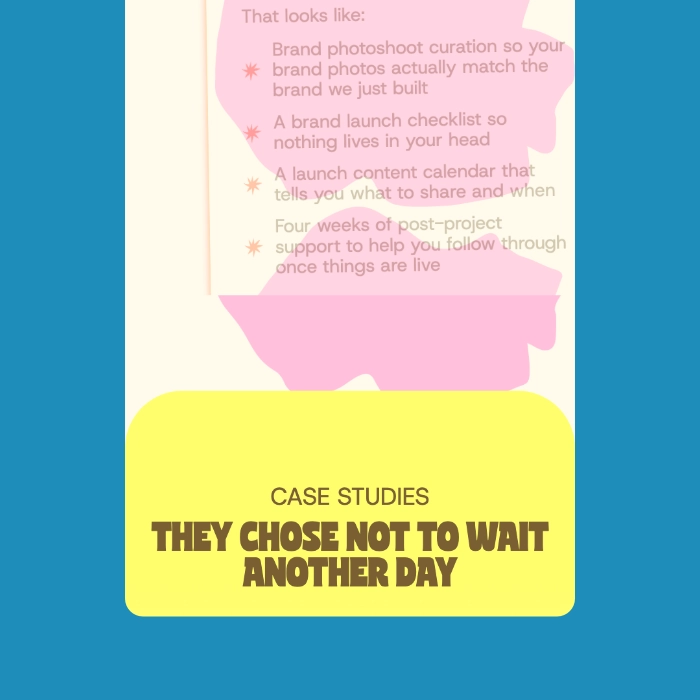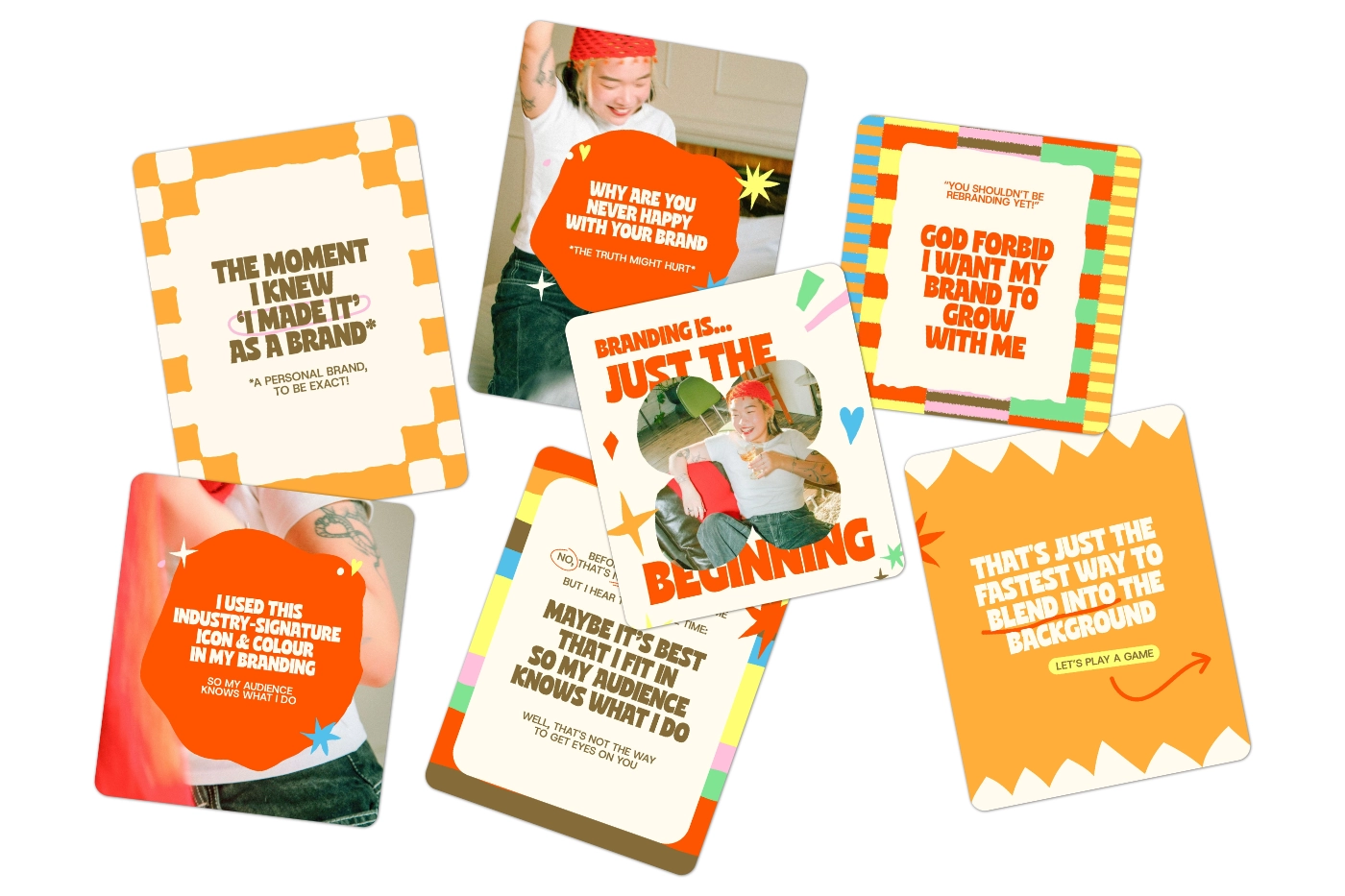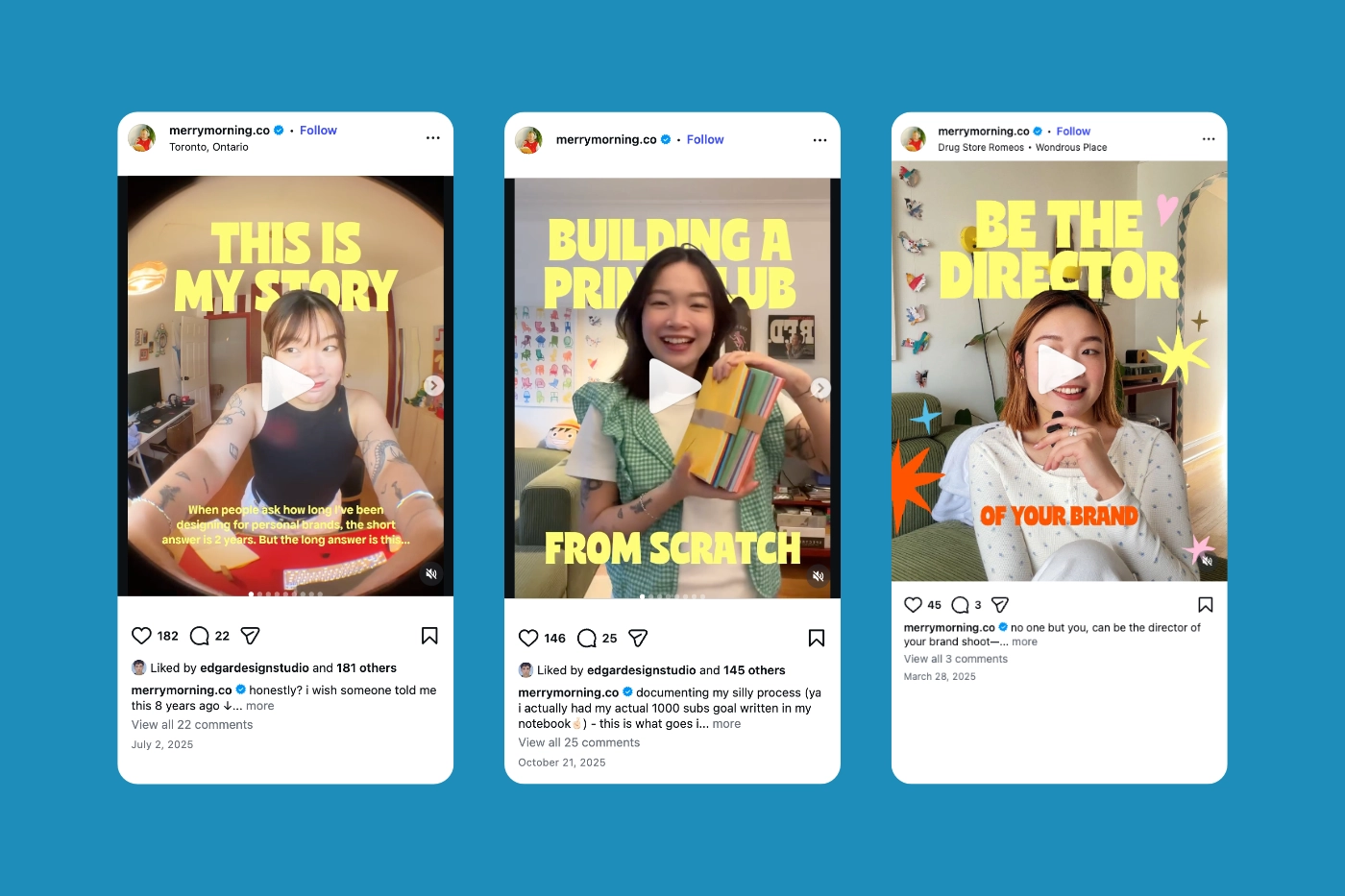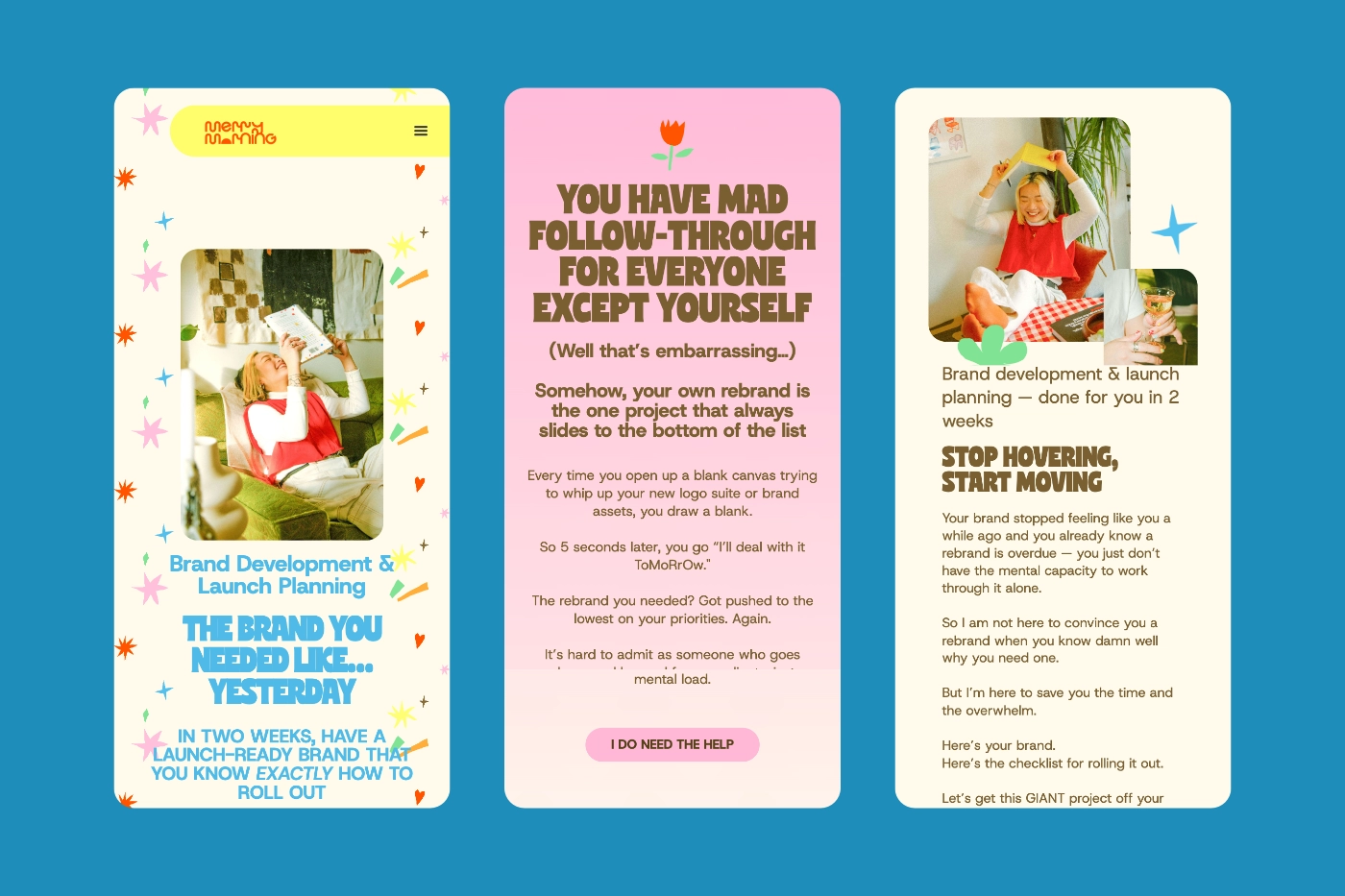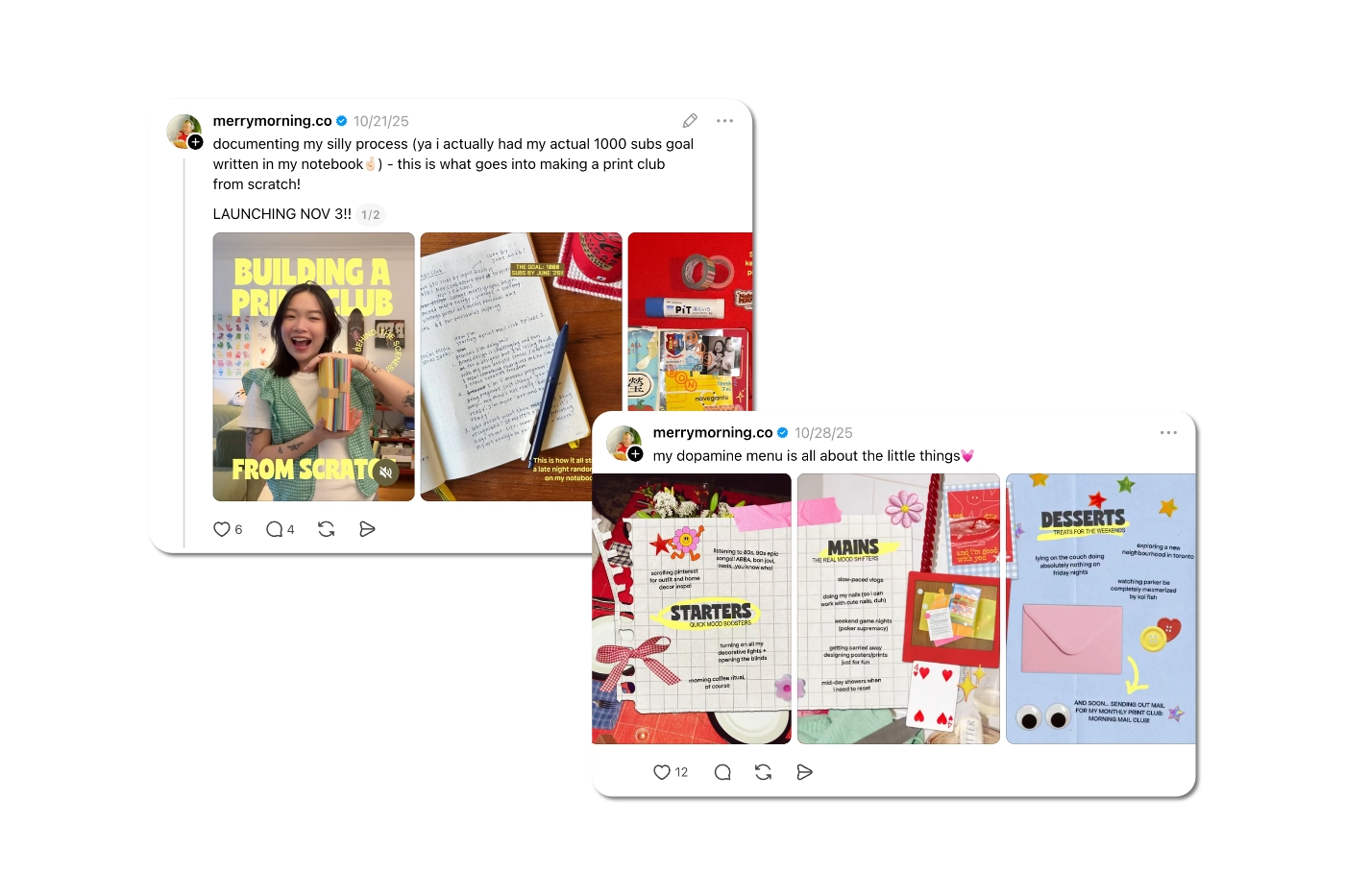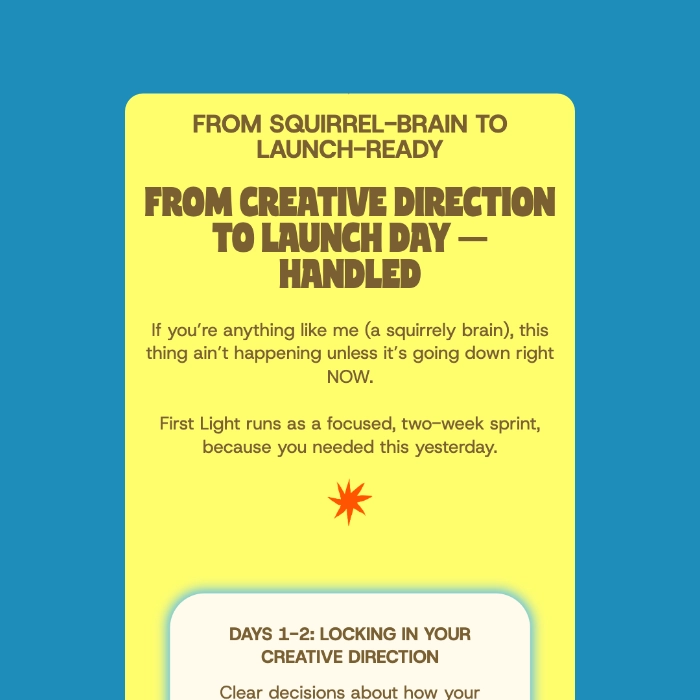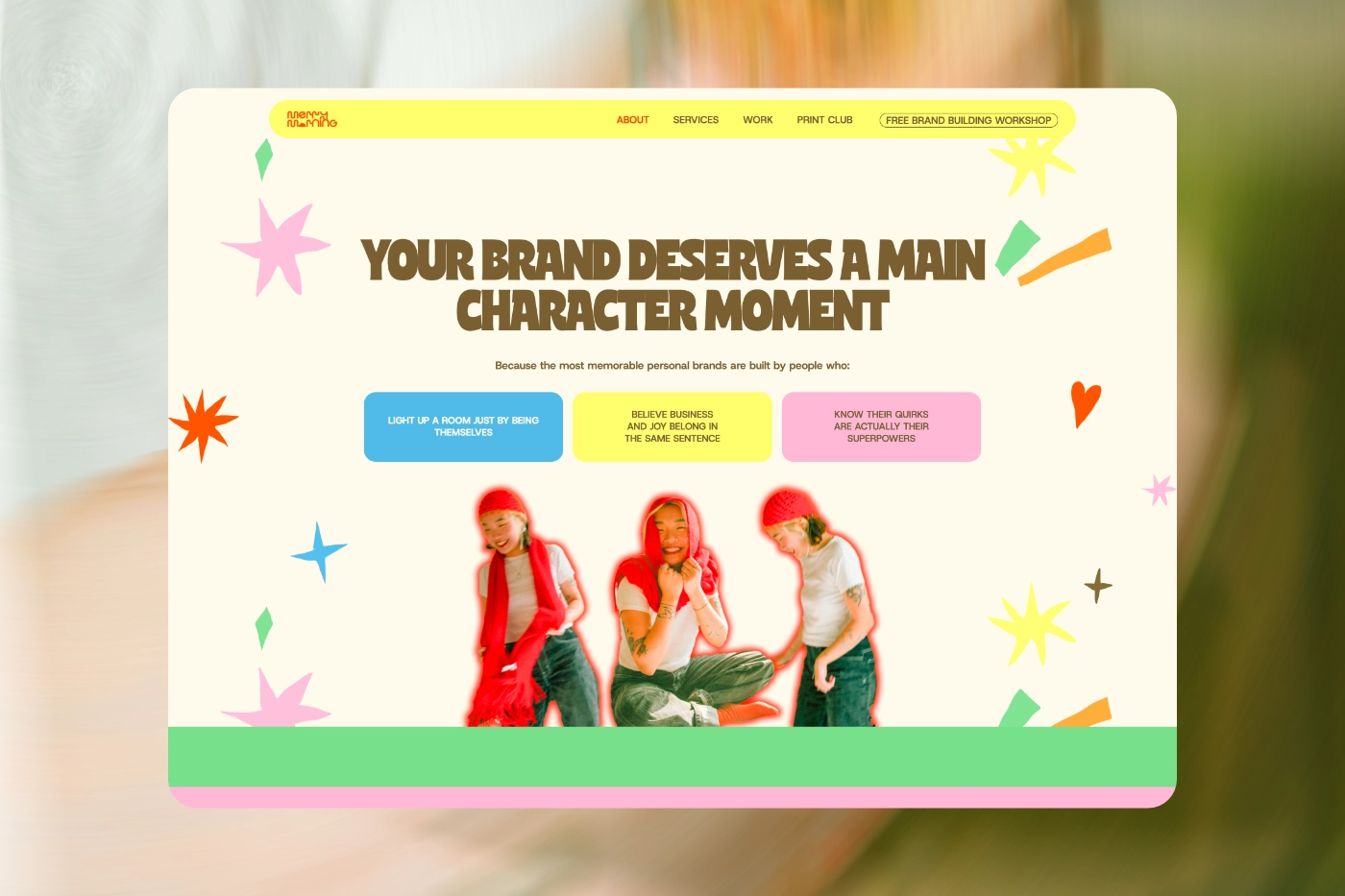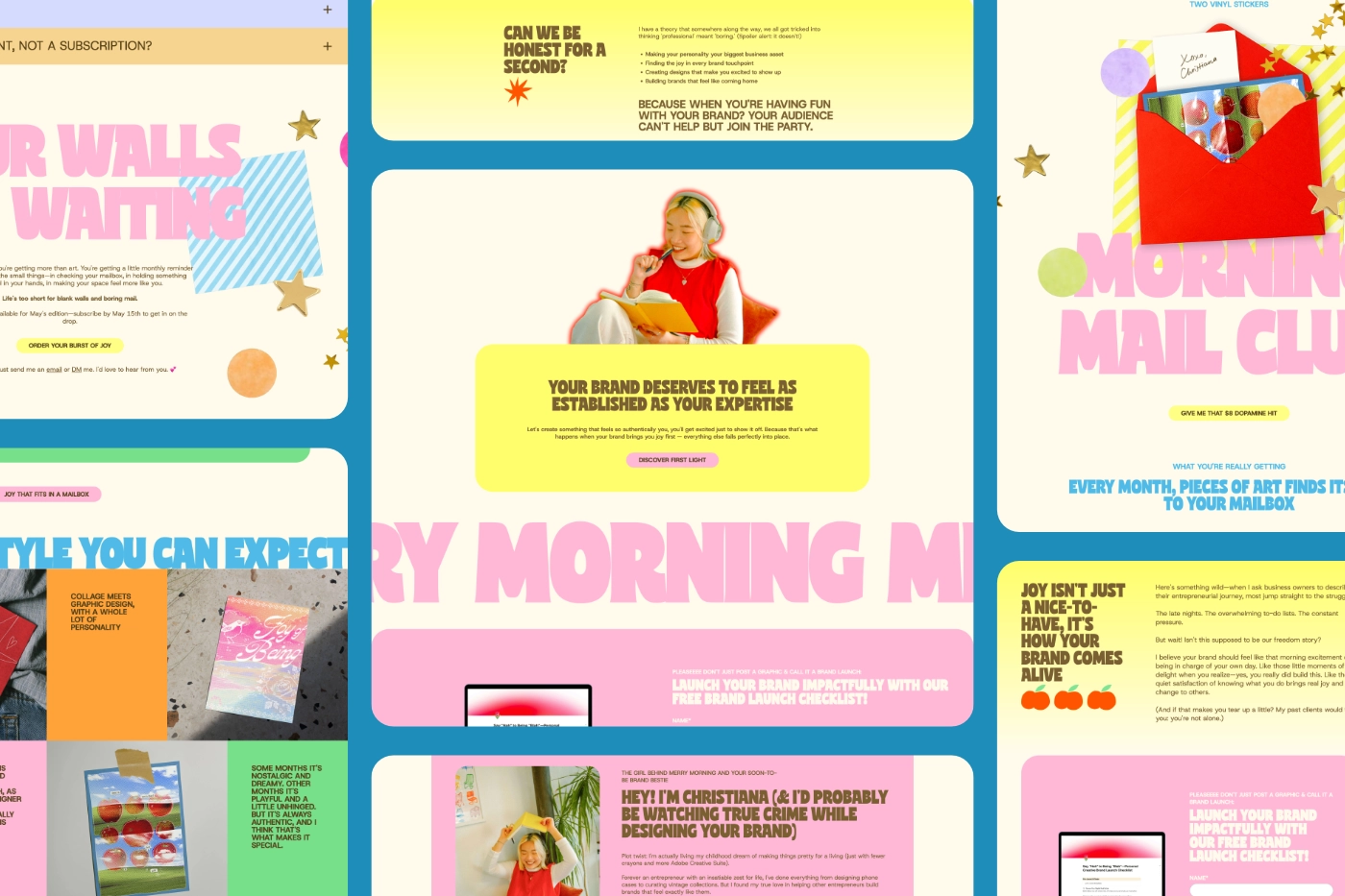
Merry Morning – Brand Design Studio
Merry Morning infuses its website and social media presence with joy by utilizing the playful and expressive Cuanky font for its primary typography.
Merry Morning is a boutique brand and website design studio founded by lead designer Christiana Wong. Dedicated to helping personal creative brands build joyful and impactful identities, the studio emphasizes that entrepreneurship should feel as exciting and fresh as a new morning. Through her signature brand development services, Christiana helps business owners rediscover the fun in their businesses, crafting visual identities that feel deeply personal, cozy, and authentically true to the founders themselves.
To visually reflect this philosophy of joy and approachability, Merry Morning extensively uses the Cuanky font across its website headers, service titles, and social media graphics. Cuanky’s playful curves, dynamic bounce, and slightly retro undertones perfectly capture the studio’s fun and energetic personality without sacrificing creative professionalism. This bold typographic choice brings an immediate sense of warmth and character to the digital experience, proving that a successful brand identity can be both highly effective and wonderfully lighthearted.
A desktop website section for Merry Morning featuring the Cuanky font in the bold heading "Your brand deserves a main character moment", accompanied by a photo of a smiling woman in a red hat.
A collection of colorful branding quote cards for Merry Morning, featuring bold typography with the Cuanky font displaying phrases like "Branding is just the beginning" and "Why are you never happy with your brand".
Three Instagram Reels cover frames from the Merry Morning account, utilizing the Cuanky font for bold, attention-grabbing video titles like "Building a print club from scratch".
A website section from Merry Morning with a yellow background, featuring the Cuanky typeface for the heading "From creative direction to launch day — handled".
Case studies section on the Merry Morning website featuring the Cuanky font by Kereatype, with the text "They chose not to wait another day" on a yellow background block.
Three mobile UI screens of the Merry Morning website showcasing responsive layouts and vibrant typography using the Cuanky font for headings like "You have mad follow-through for everyone except yourself".
Two social media posts from the Merry Morning Threads account, showing behind-the-scenes content and a dopamine menu graphic that incorporates the Cuanky font.